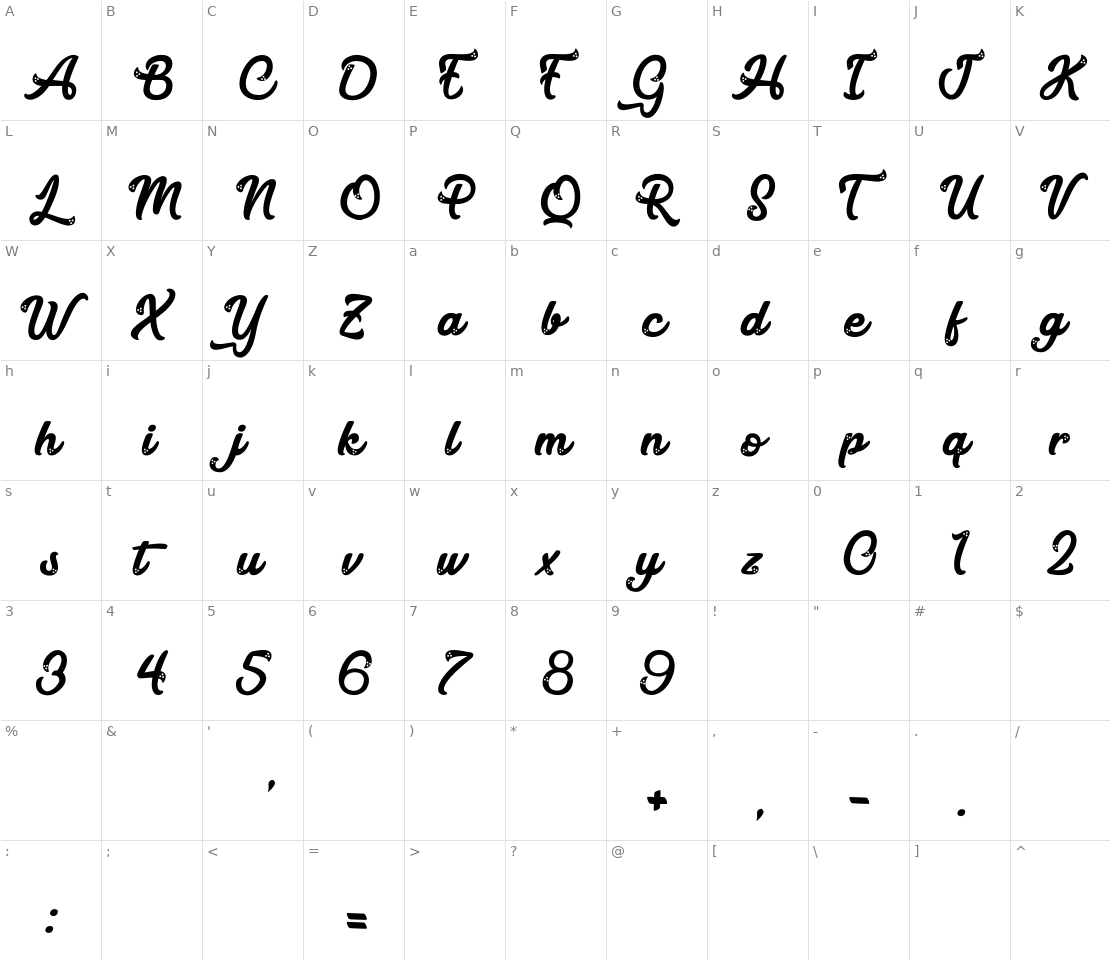
Magic Candy
Magic Candy is a thick, connected script from Thomas Boucherie at Octotype, with bold strokes and bouncy letterforms that feel loose and playful without losing legibility. The heavy weight gives it real presence at large sizes, making it a strong pick for headlines, packaging, children's branding, and event posters where you want something that reads as fun and approachable.